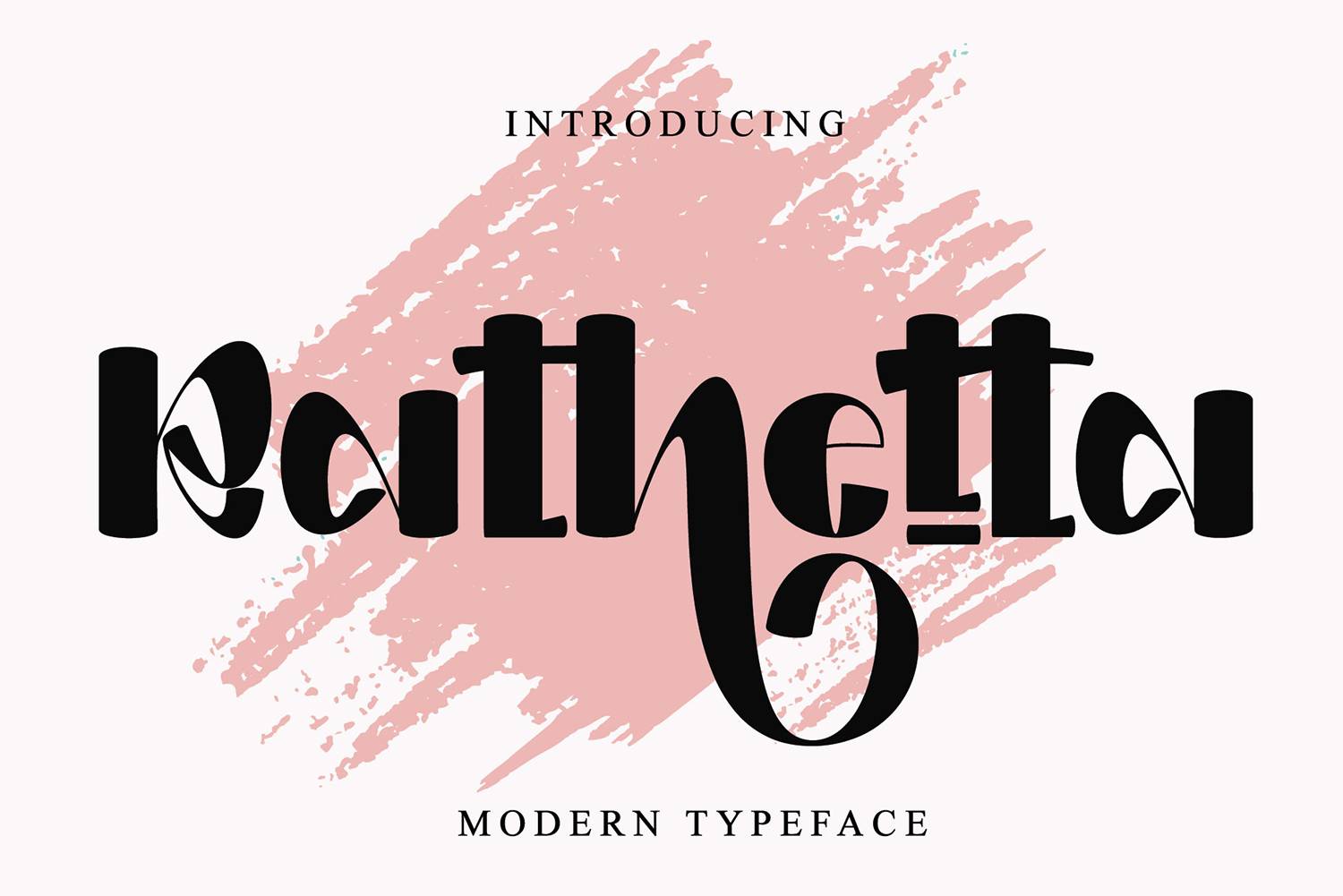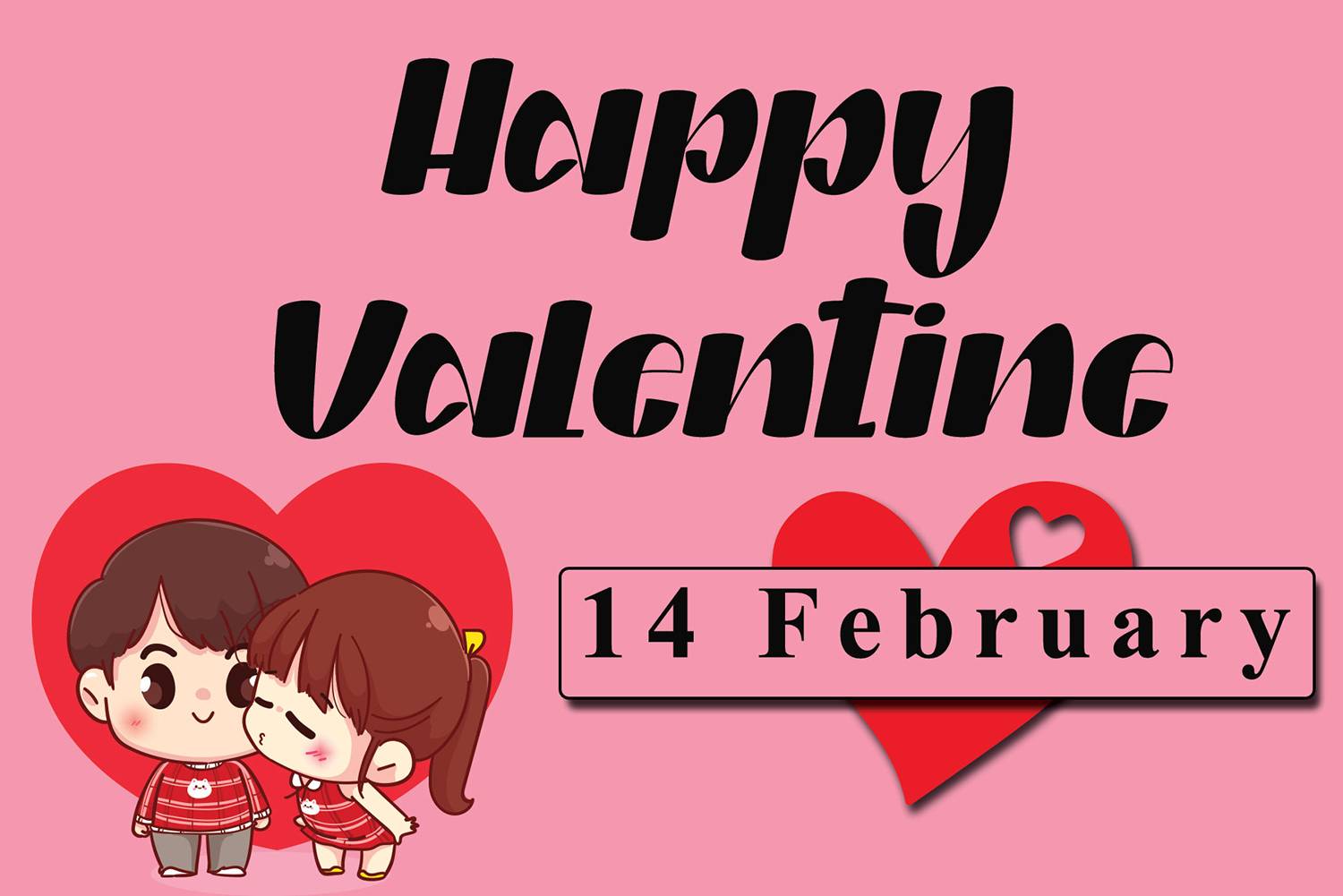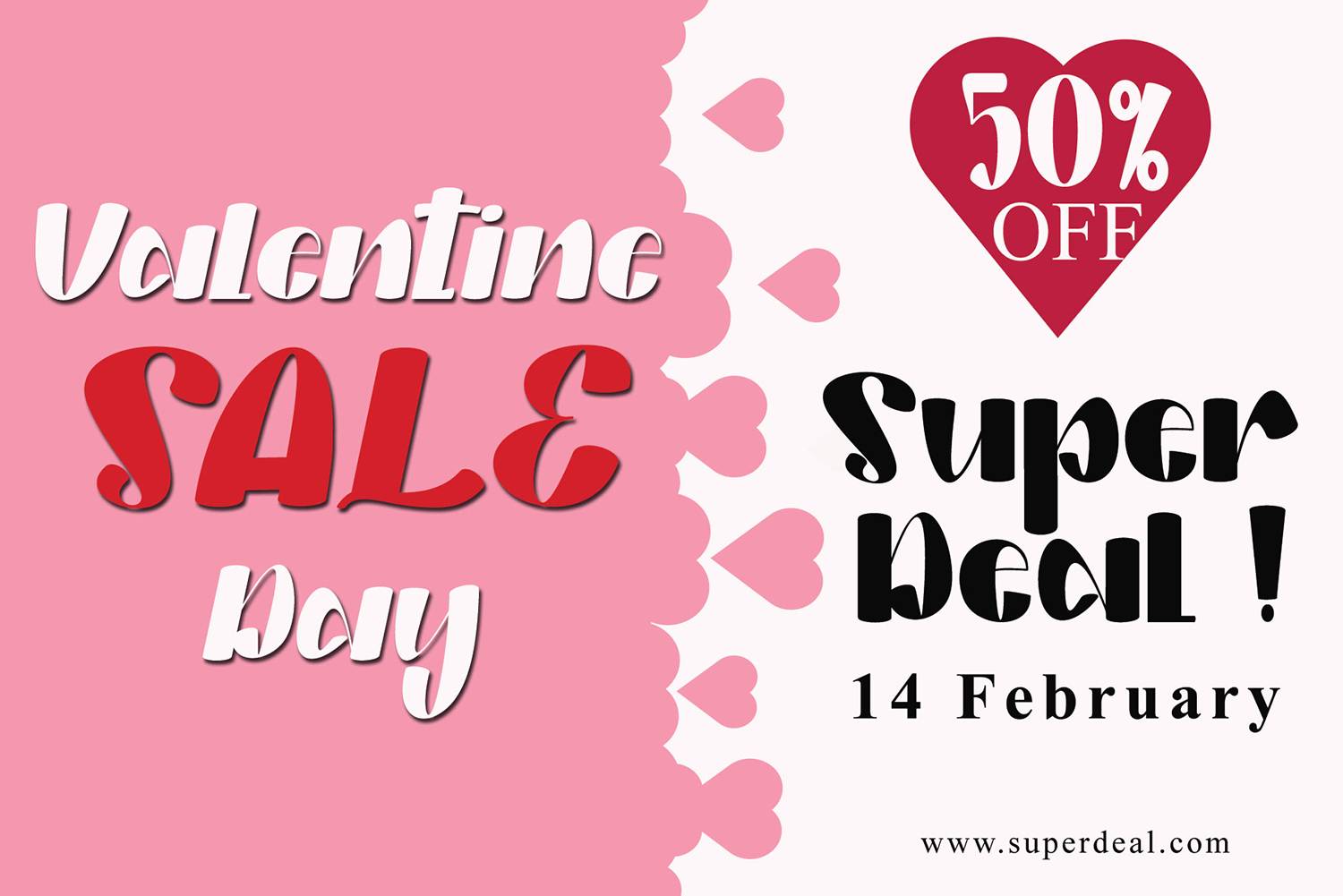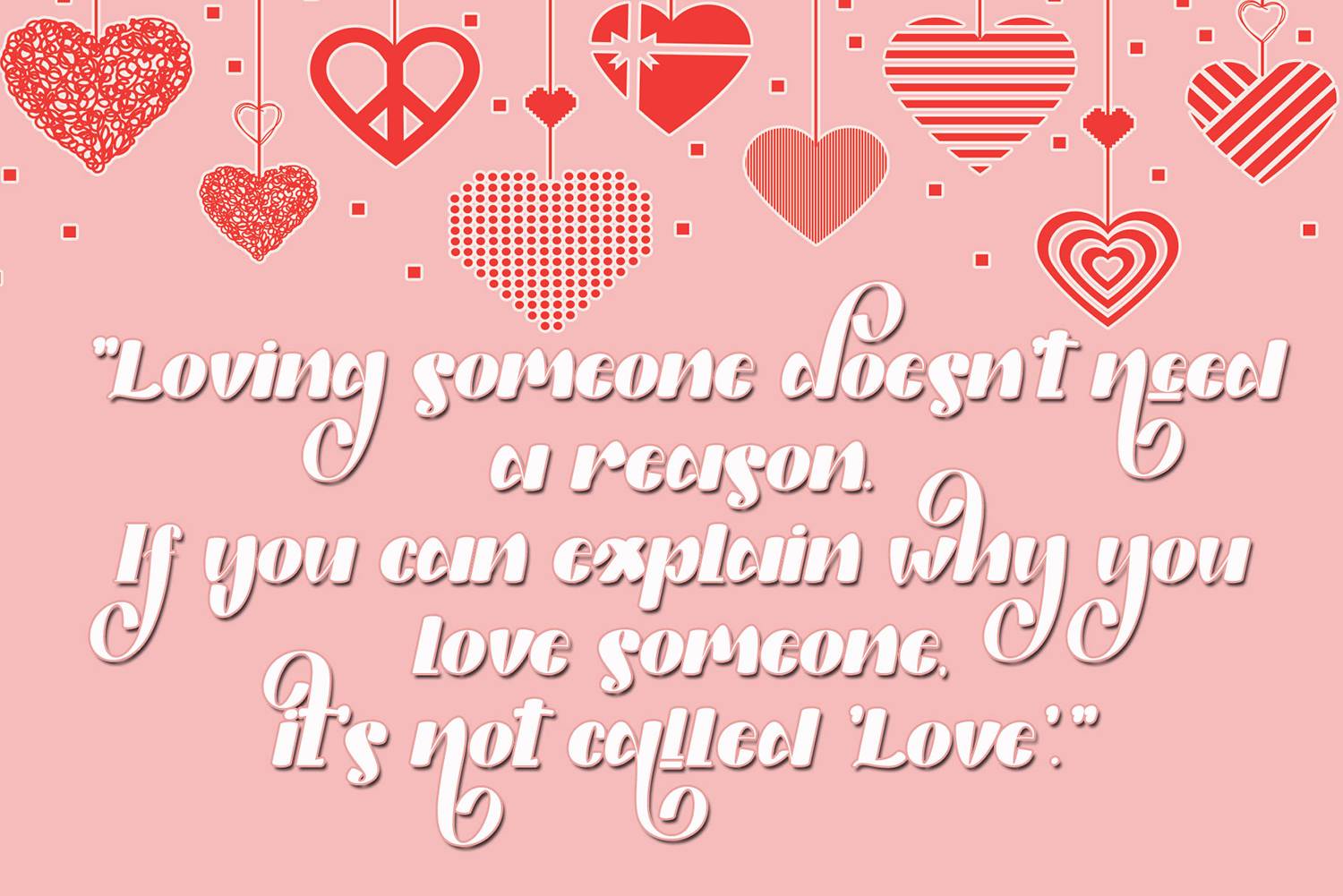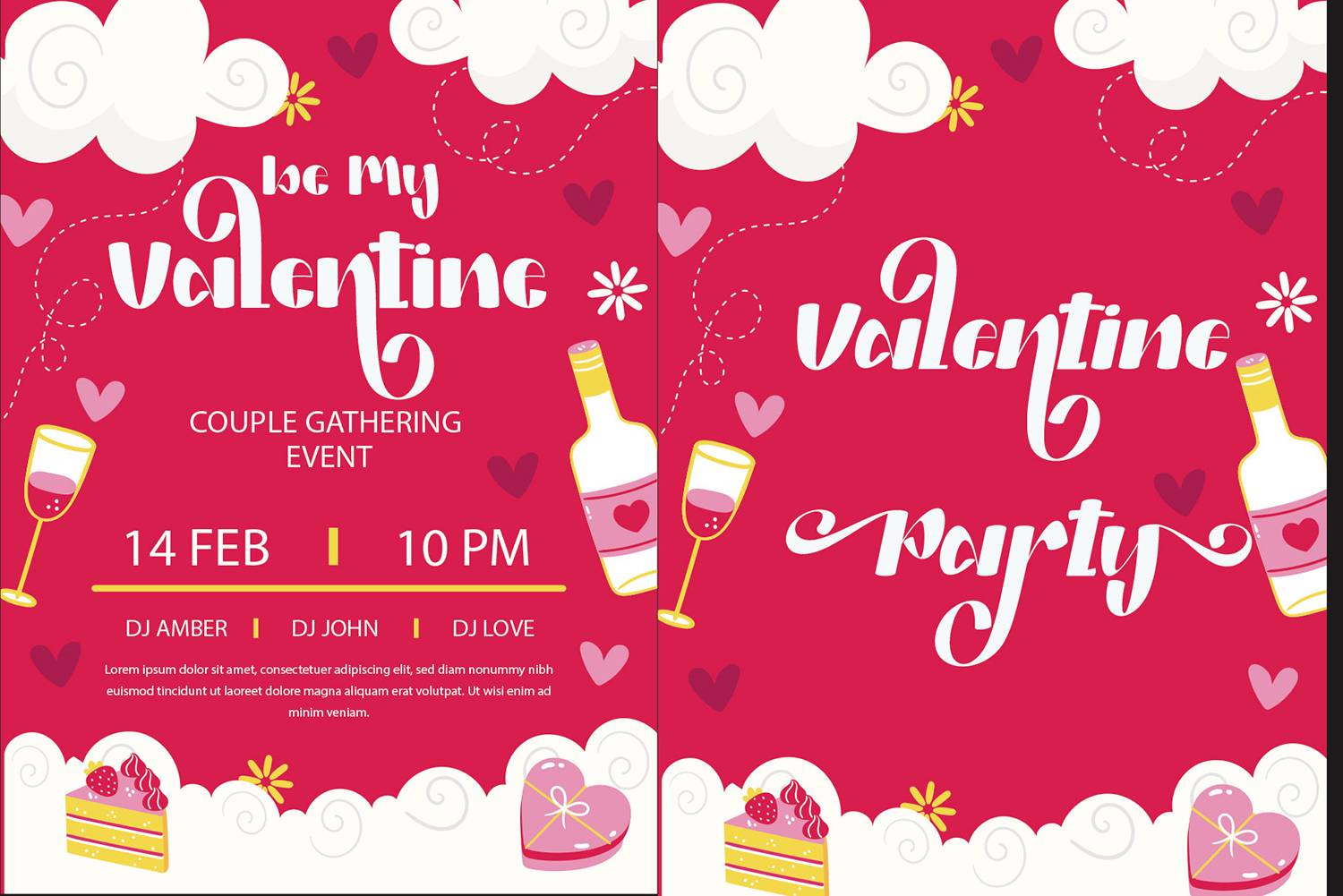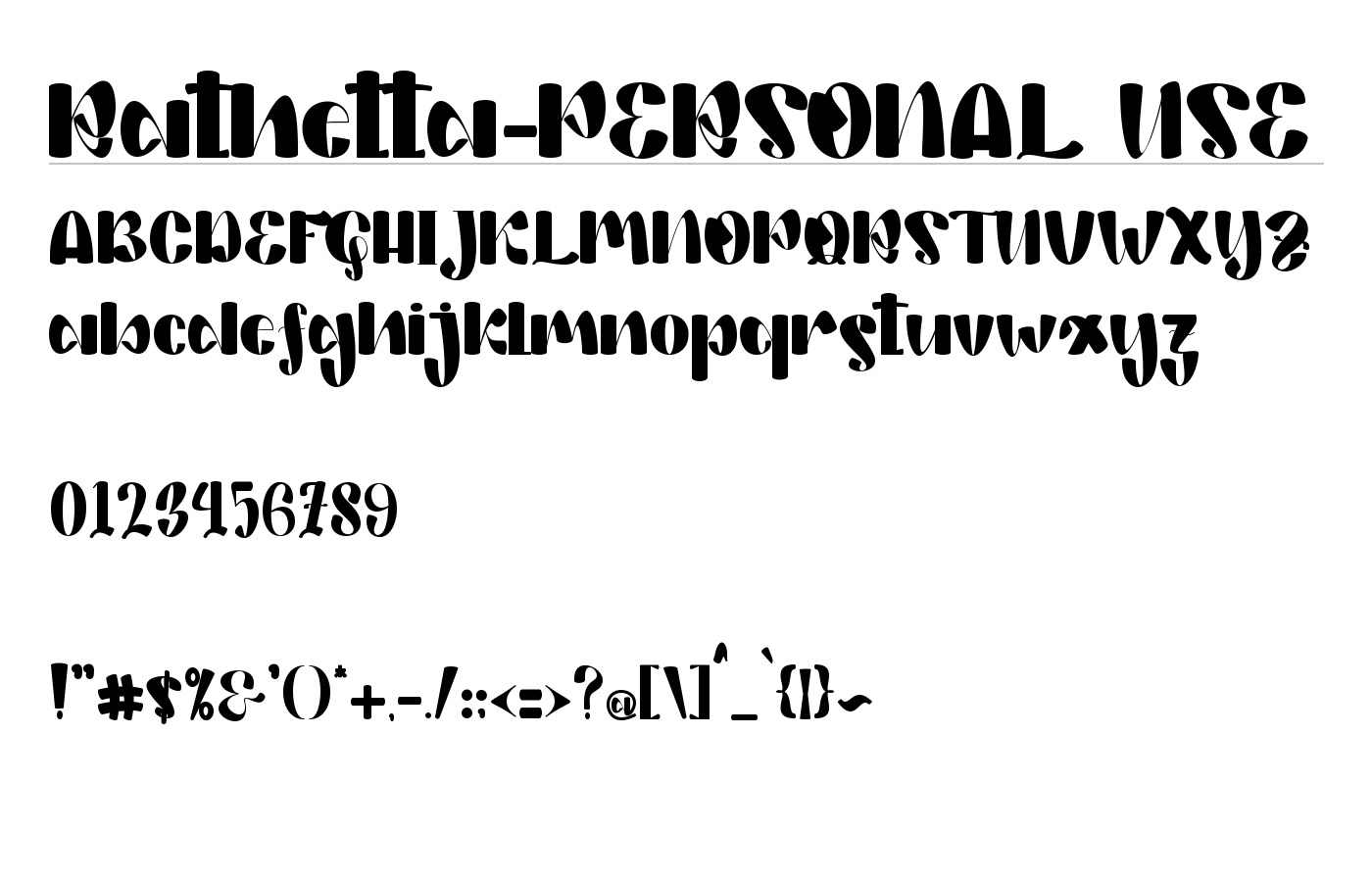
Rathetta is a bold, playful serif font with high contrast between thick and thin strokes, featuring unique, decorative shapes in both uppercase and lowercase letters. Its strong personality and quirky details make it perfect for eye-catching headlines, logos, and creative projects that want to convey a fun yet sophisticated vibe. This font works well in branding and packaging where a distinctive, artistic touch is needed.
Rathetta Font
About Rathetta Font
| Font family | Rathetta Font |
| Designer | Arkrist Letter |